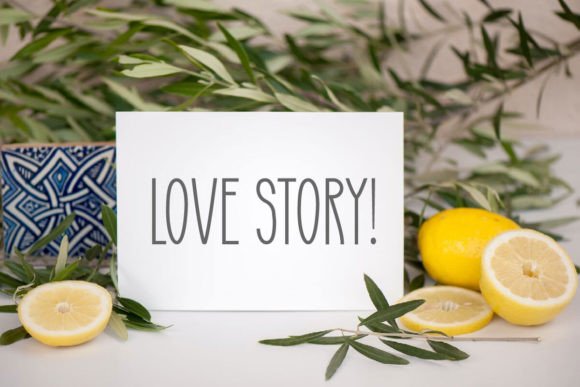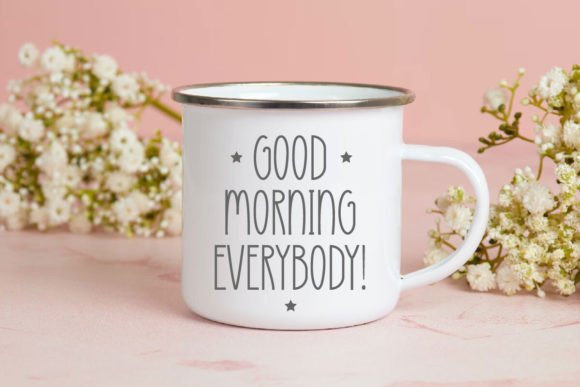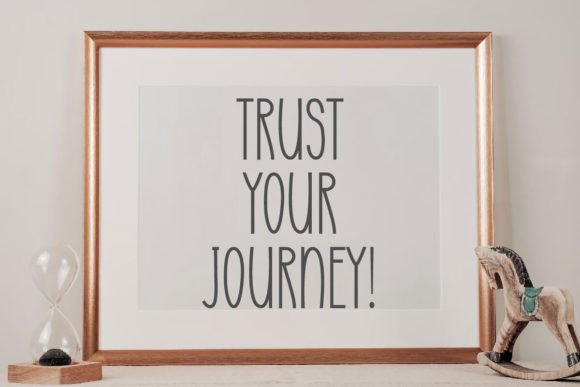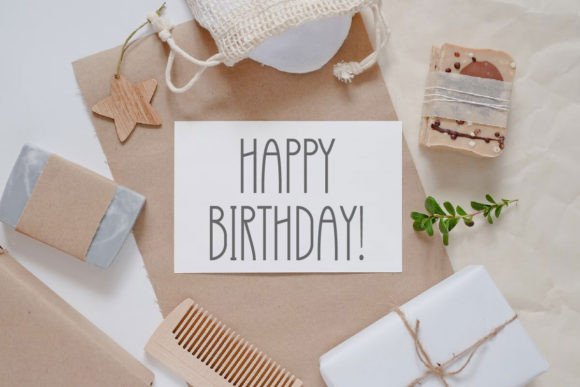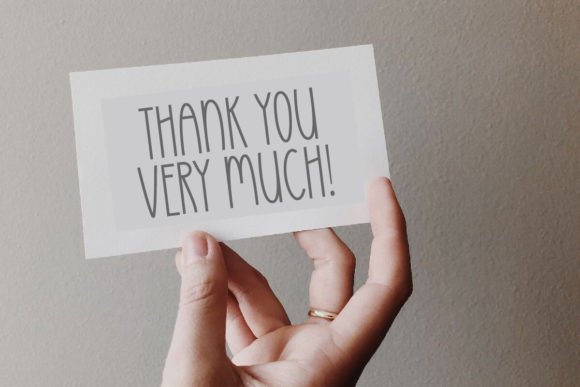
Introduction to Farmcisco Font
Have you ever been brainstorming for a creative project and suddenly, the perfect font pops into your mind? It’s like the entire design falls into place. For many designers, this moment is a dream come true. And that’s exactly what the Farmcisco Font can offer – a seamless fusion of style and functionality. This adorable sans serif font is perfect for adding a personal touch to your designs.
Key Features of Farmcisco Font
- High-quality design resource ideal for creative projects, including posters, flyers, and business cards.
- Unique, modern design with a transparent background, allowing for easy customization and layering.
- Perfect for designers and artists looking for a versatile and stylish font to elevate their work.
Honest Review: Farmcisco Font
I recently had the chance to work with the Farmcisco Font, and I must say it’s been a delightful experience. As a designer, I’m always on the lookout for high-quality design resources that can elevate my creative projects.
What works well about the Farmcisco Font is its clean and modern design. The transparent background makes it easy to layer over images or other design elements, giving me a lot of flexibility when working on a project. The font also comes in a range of weights, which is perfect for creating a consistent visual identity.
- ✨ Clean and modern design
- ✨ Transparent background for easy layering
- ✨ Range of weights for consistent visual identity
One limitation I’ve noticed is that the font may not be suitable for all types of projects. For example, if you’re working on a project that requires a more rustic or vintage feel, the Farmcisco Font may not be the best choice.
Tips for Getting the Most Out of Farmcisco Font
To get the most out of the Farmcisco Font, use it on a transparent background to create a clean and modern design. You can also experiment with different font sizes and colors to add visual interest to your project.
Common Use Cases for Farmcisco Font
The Farmcisco Font is perfect for a variety of creative projects, including logo design, branding, and marketing materials. Its high-quality design and transparent background make it a great choice for any project that requires a professional and modern look.